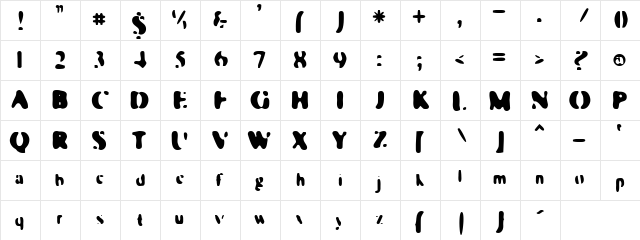
Gini Pig Regular
Design Context for Gini Pig Typeface
Gini Pig is a composed and adaptable typeface that performs quietly and consistently across a wide range of design contexts.